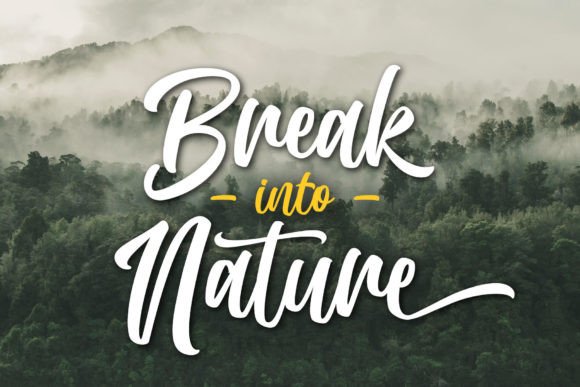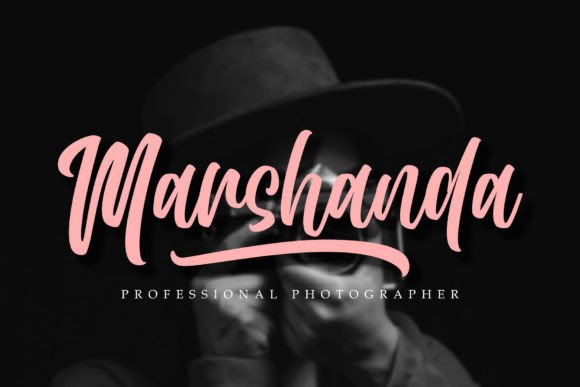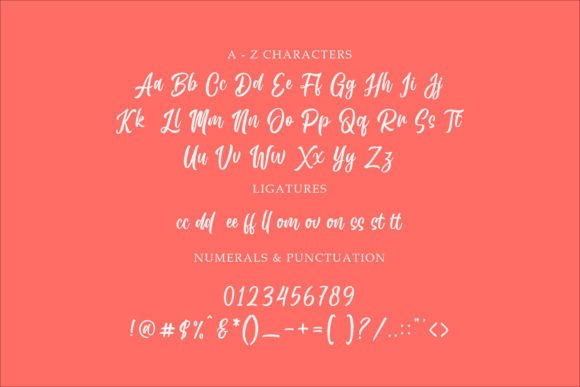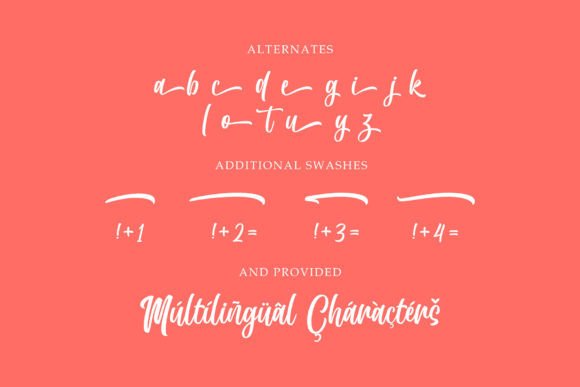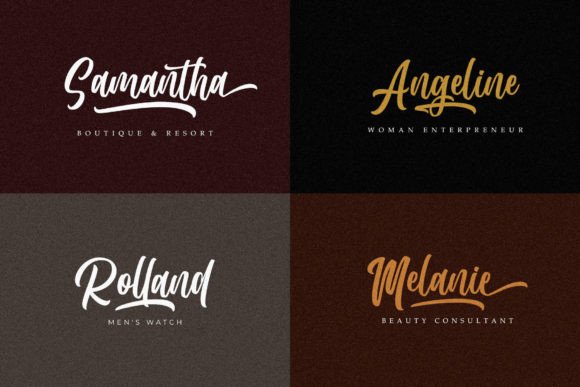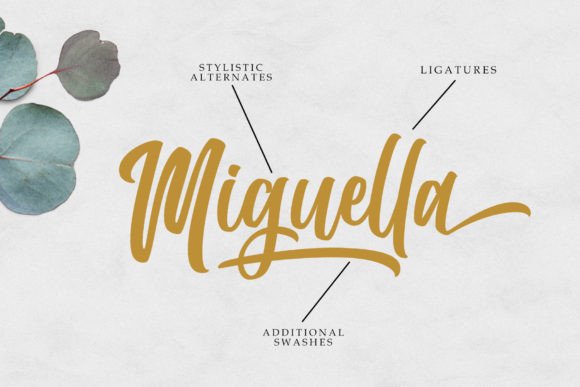
Introduction to Madistone Font
Have you ever found yourself in the midst of a creative project, struggling to find the perfect font to bring your vision to life? You browse through countless options, scrolling through font libraries and design resources, searching for that one special something that will elevate your design to the next level. For designers, the quest for the perfect font can be a daunting task, but trust us when we say that the Madistone Font is about to become your new go-to design resource.
With its smooth and flowing appearance, the Madistone Font is sure to charm and captivate your audience, making it a must-have for any designer who loves script fonts. Whether you’re working on a high-quality design project or just need a free download to add some personality to your creative project, the Madistone Font has got you covered.
So, what sets the Madistone Font apart from the rest? Its PUA encoding, for starters, allows for seamless access to its amazing glyphs and ligatures, making it a high-quality design resource that’s sure to take your design to new heights.
Key Features of Madistone Font
- Unique, modern design with a transparent background, ideal for creative projects that require a high-quality, non-distracting font.
- High-resolution font with a resolution of 300 DPI, guaranteeing crisp and clear text even at large sizes.
- Supports a wide range of languages, making it a versatile choice for global design projects.
- Includes a comprehensive character set, including uppercase and lowercase letters, numbers, and punctuation marks.
- Perfect for use in logos, branding materials, and other creative projects where a clean and modern font is required.
Honest Review: Madistone Font
I recently had the chance to work with the Madistone Font, and I must say it’s been a pleasant experience. The font is a high-quality design resource that’s perfect for any creative project.
One of the things that works well about the Madistone Font is its clean and elegant design. The transparent background makes it easy to overlay on images and backgrounds, giving you complete creative control. ✨
However, I did encounter a few limitations. The font only comes in a limited range of weights and styles, which might not be ideal for projects that require a wide range of typography options. ⚠️
Overall, I’m impressed with the Madistone Font. It’s a solid design resource that’s perfect for designers looking for a high-quality font that’s easy to use. While it may not be the most comprehensive font library, it’s a great addition to any designer’s toolkit.
- Limited range of weights and styles
The Madistone Font is a versatile design resource that can elevate your creative project. With its high quality and unique style, it’s a must-have for designers. To get the most out of this font, follow these steps.
Tips for Getting the Most Out of Madistone Font
For a transparent background, use the font on a solid-colored background to make it stand out. Experiment with different font sizes and colors to create a unique visual effect.
Madistone Font is perfect for:
- Print materials, such as business cards and brochures
- Digital projects, such as website headers and social media graphics
Yes, the Madistone Font can be used for commercial projects with a transparent background. The font’s transparent background makes it ideal for use in designs that require a high level of customization and flexibility.
Is the Madistone Font suitable for high-quality design projects?
Yes, the Madistone Font is a high-quality design resource that is suitable for a wide range of design projects, from business cards and brochures to websites and mobile apps. Its clean and modern design makes it a great choice for any creative project that requires a professional look and feel.